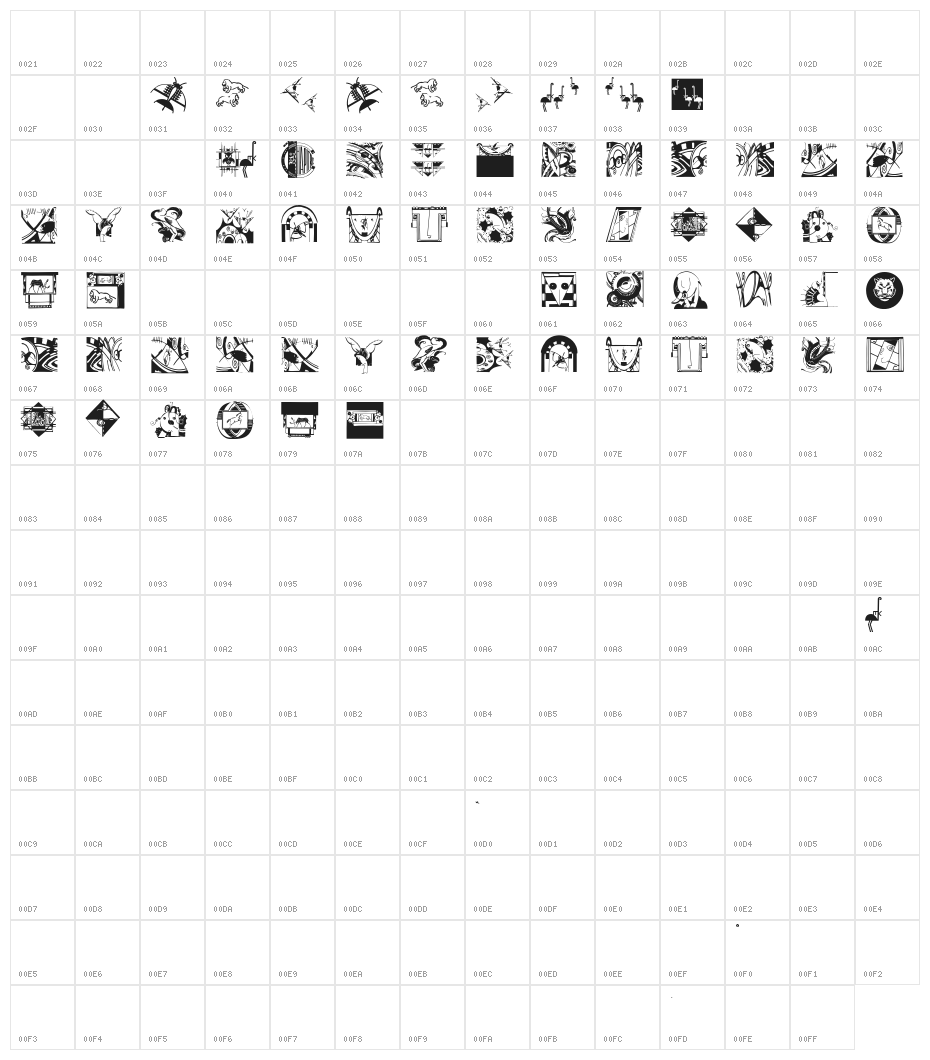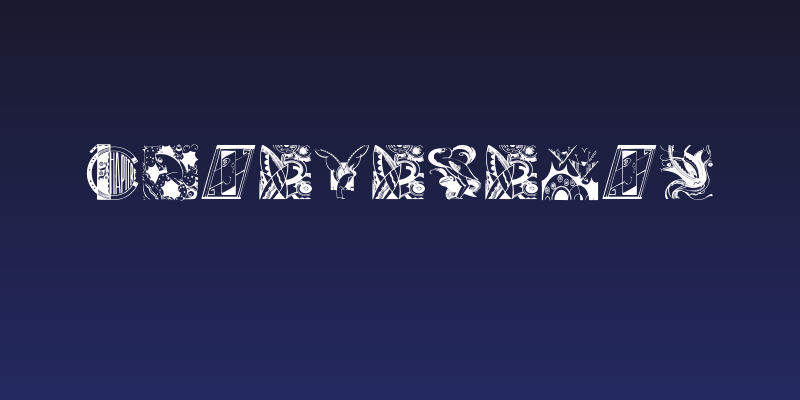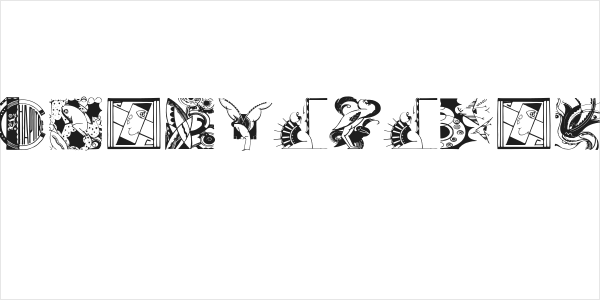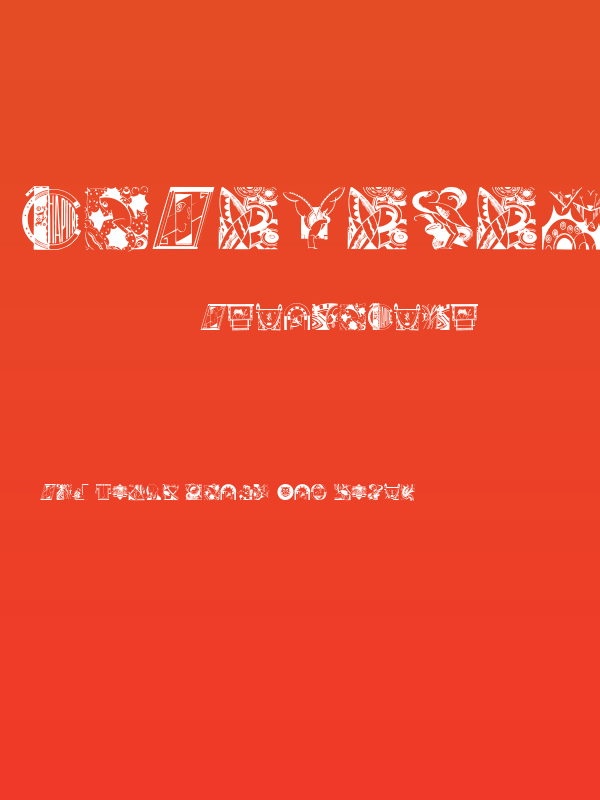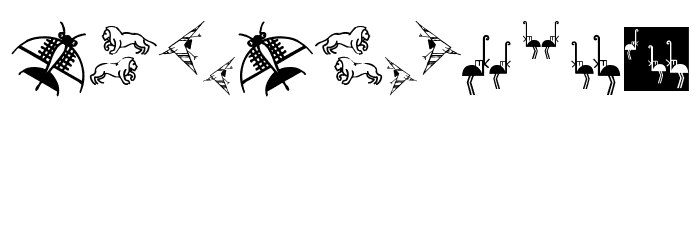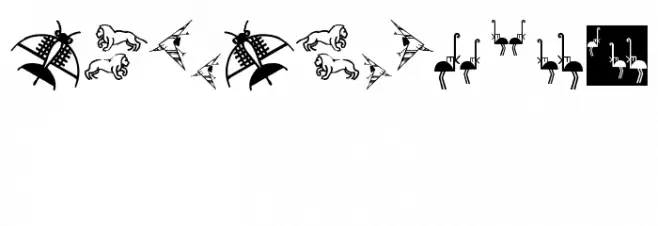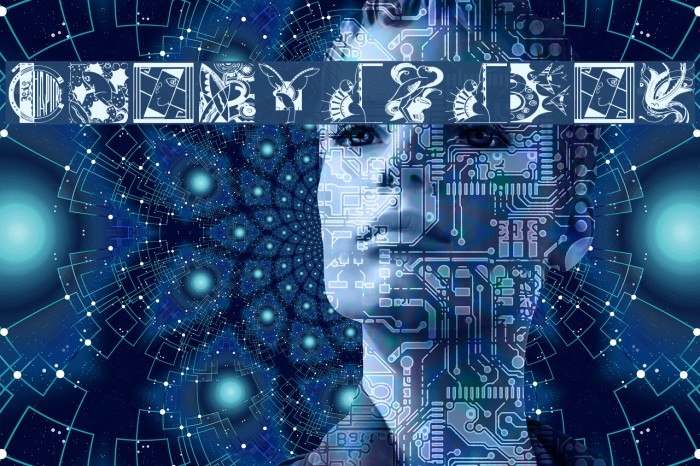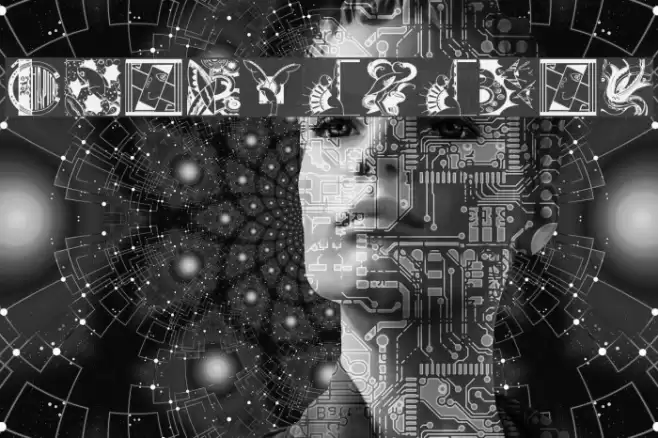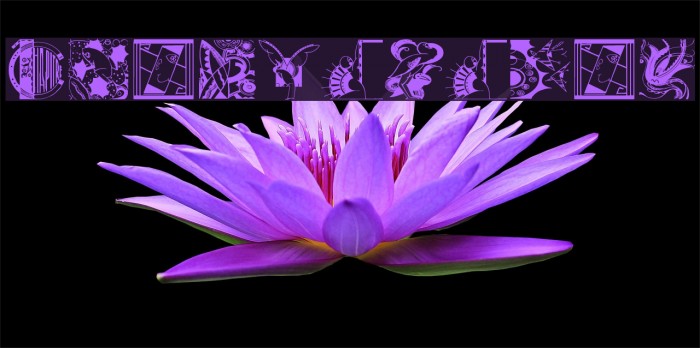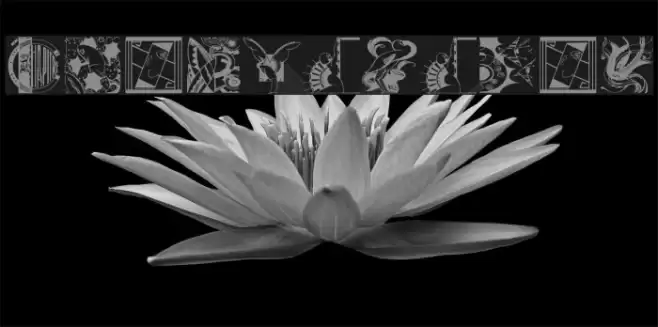
ArtElements Font
ArtElements Description
This decorative font is a unique blend of artistic elements and intricate designs, with each character featuring a distinct pattern or motif. The uppercase letters are adorned with elaborate illustrations, ranging from geometric shapes to animal figures, creating a visually captivating experience. The lowercase letters continue this theme with slightly less complexity, yet maintain the artistic flair. Numbers and special characters are equally detailed, adding to the font's overall aesthetic appeal. This font is ideal for projects that require a bold, artistic statement, such as posters, album covers, or branding materials. Its intricate design may not be suitable for body text but excels in decorative applications.